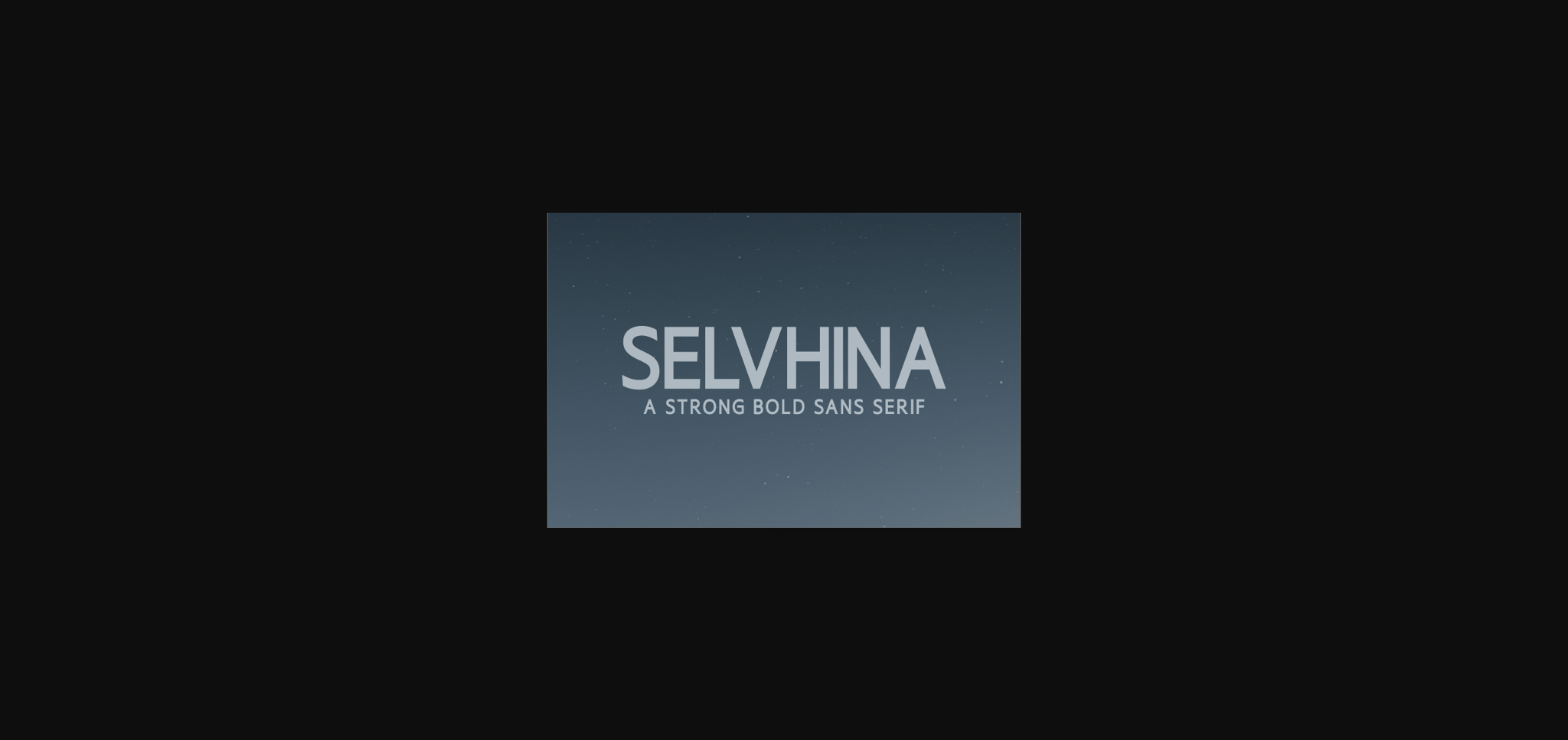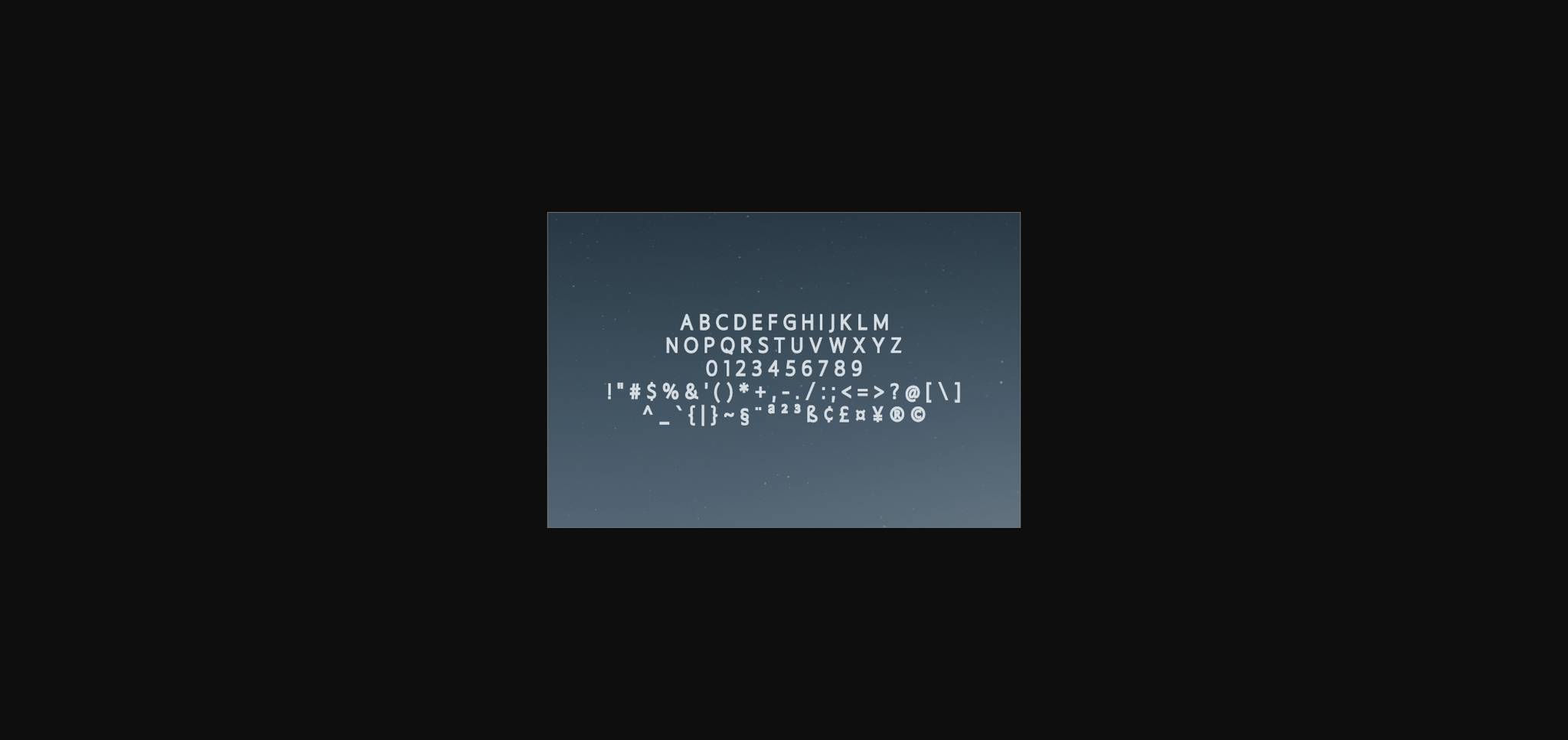
Selvhina is a modern sans serif font. Clean and sophisticated, this font is the perfect fit for all of your logos, branding, social media, and crafty DIY projects